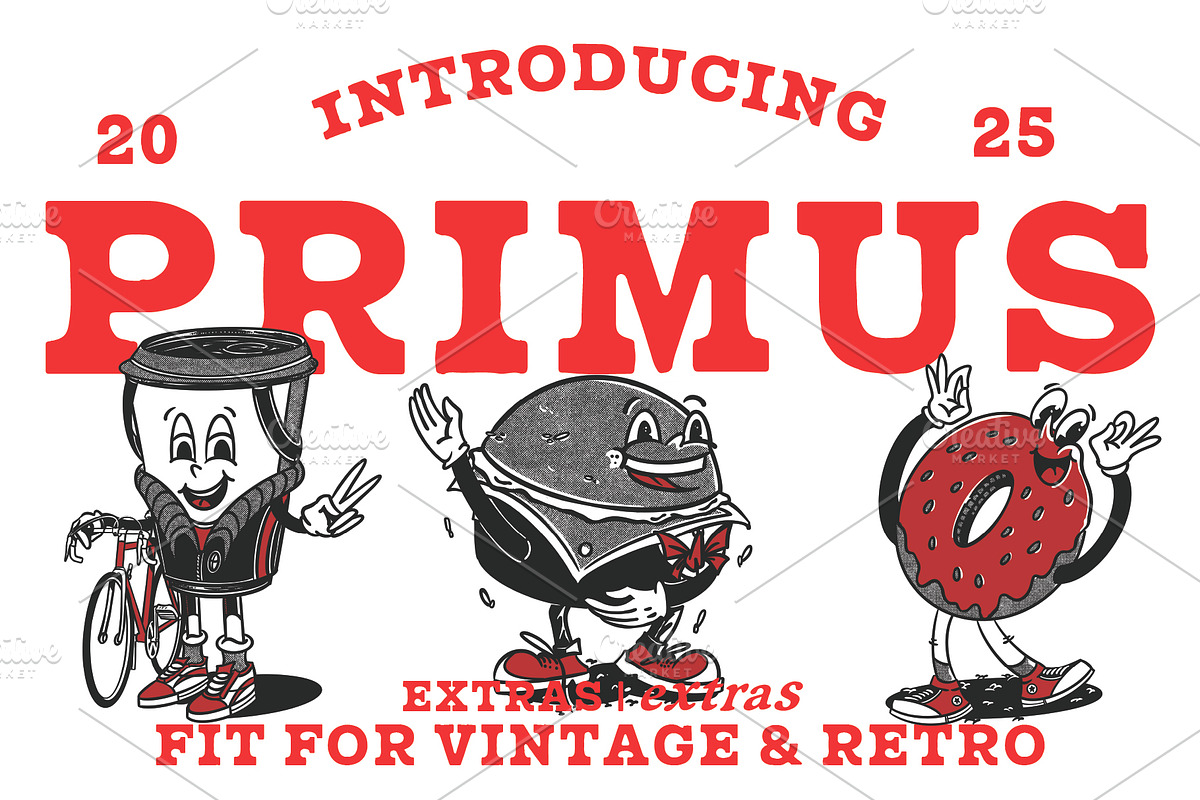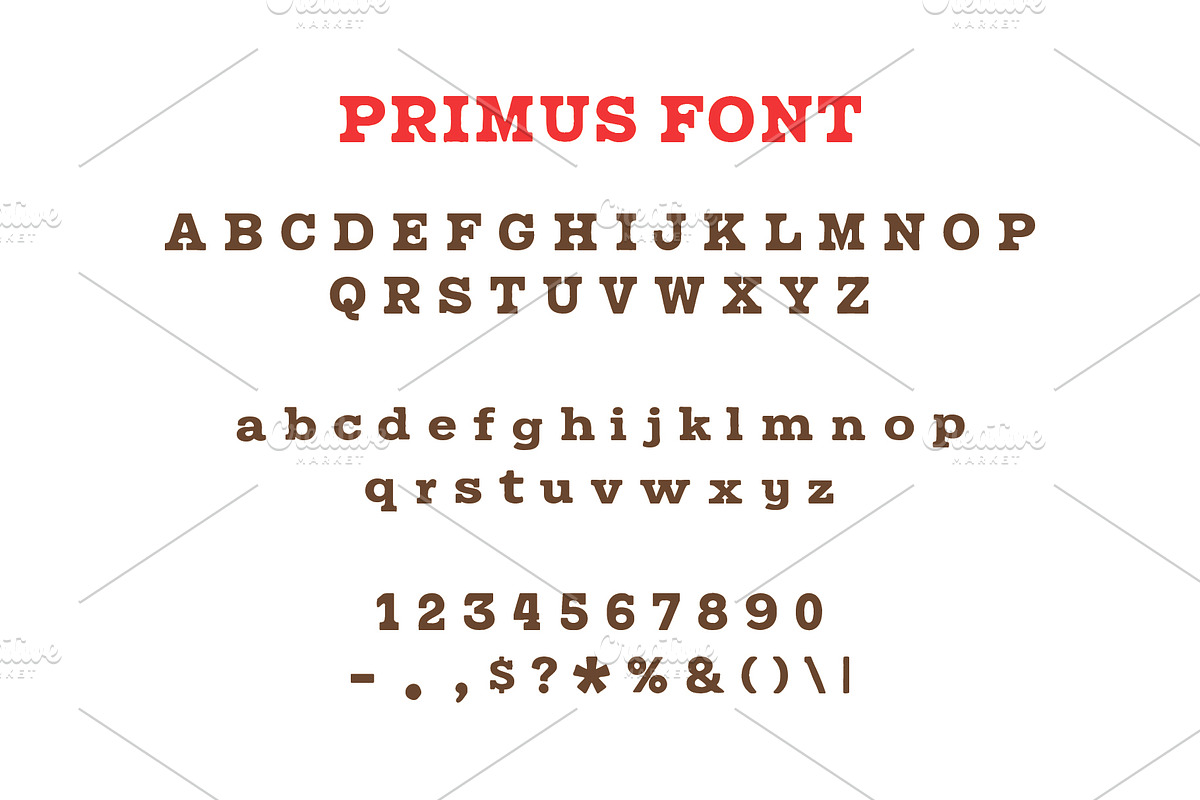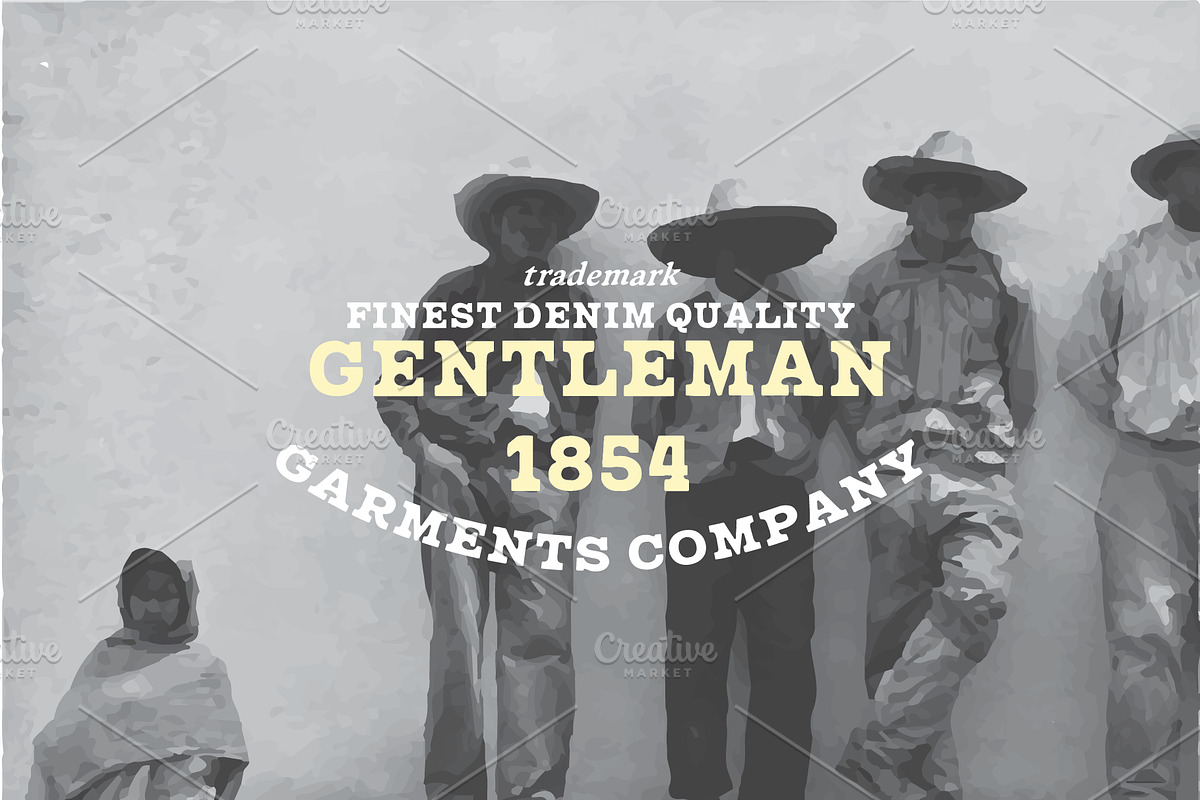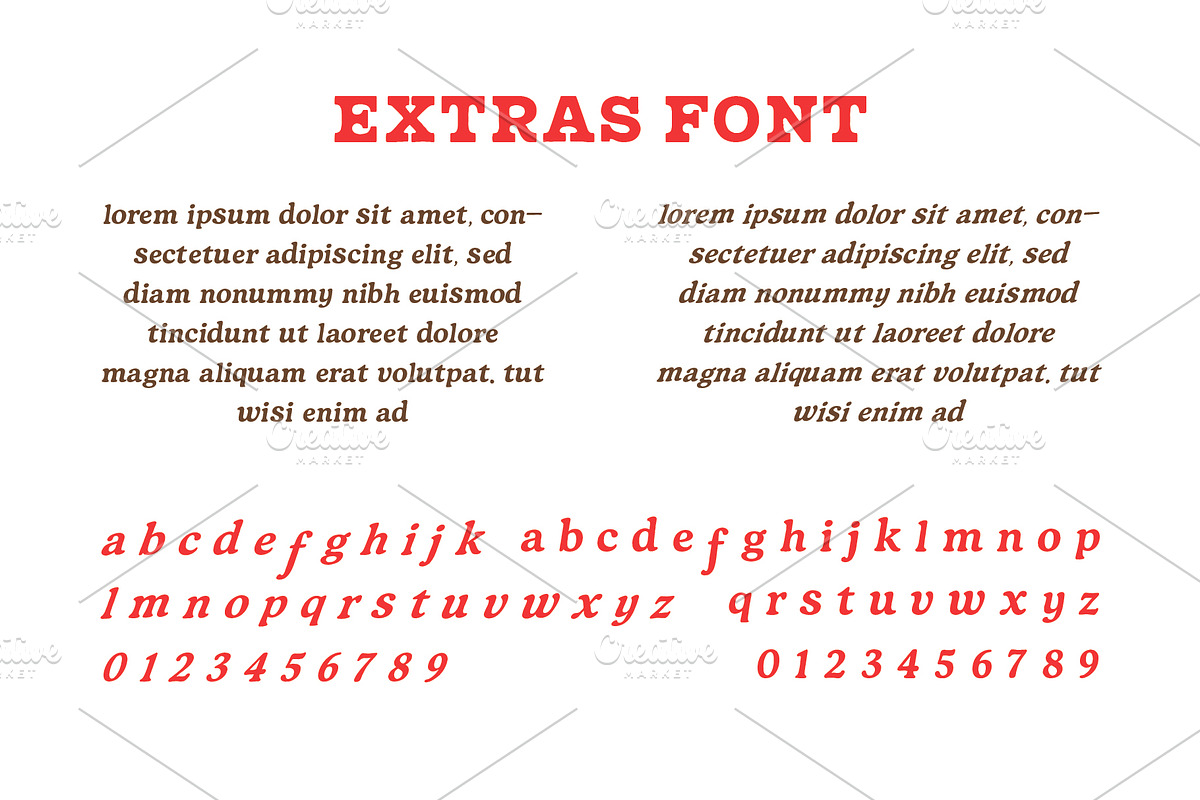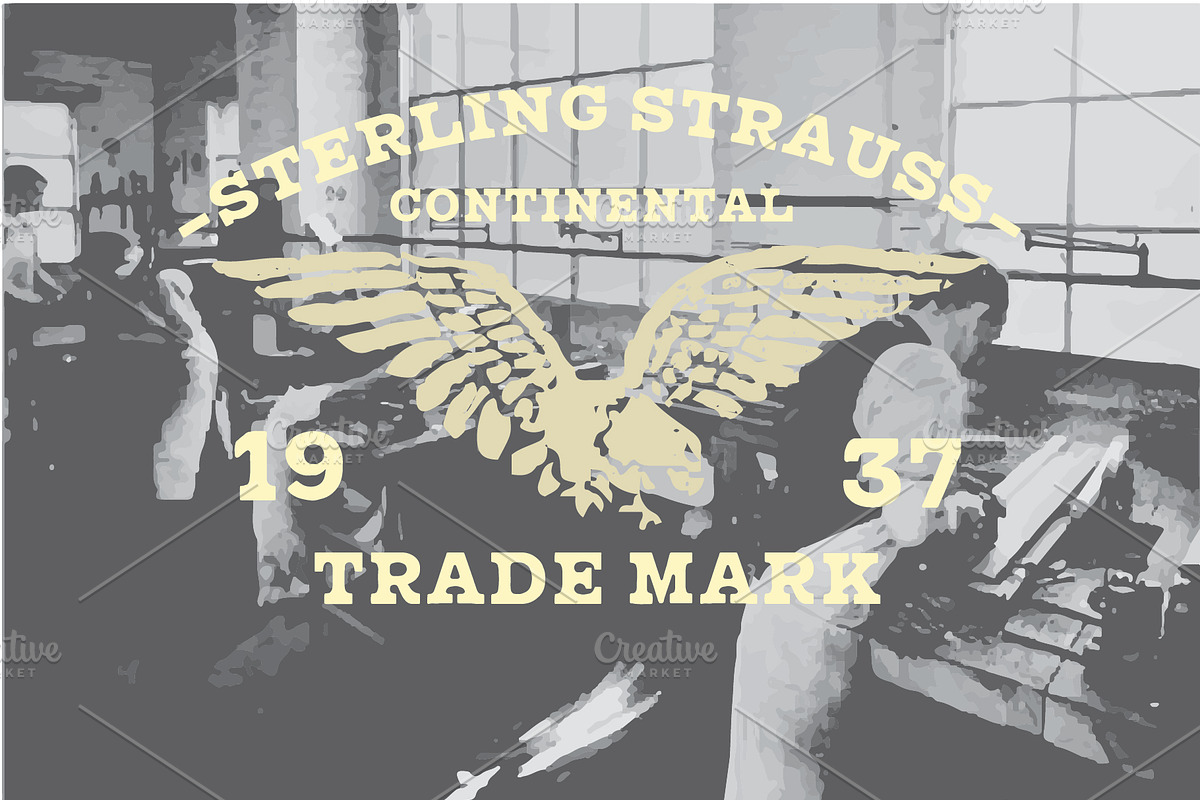
Primus – Bold Vintage Slab Serif
Introducing PRIMUS 2025 by Rusted Workz
Bring a bold touch of vintage & retro charm to your brand with Primus 2025. Perfectly crafted for F&B businesses, cafés, restaurants, breweries, and artisan products that want to stand out with a nostalgic vibe.
Unique mascot illustration – adds personality to your design Authentic retro typography – timeless style with bold character
Whether you’re working on menus, packaging, signage, or promotional materials, Primus 2025 delivers a classic yet versatile look that captures attention.
Bring back the golden era of design with a modern twist. 🍻